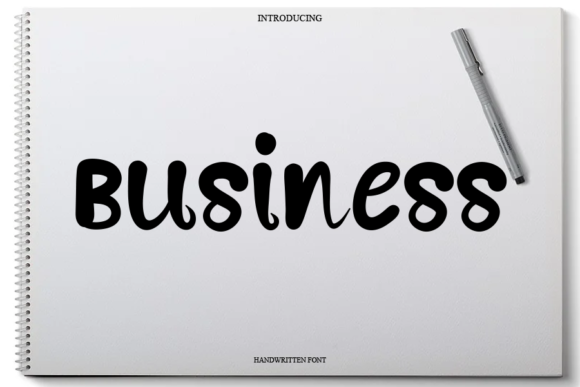
Unleash your boundless creativity with "Business" – a captivating script font family that adds a touch of whimsical elegance to any project. With its charming hand-brushed style, "Business" dances across the page in a captivating display of artistry.
Immerse yourself in an enchanting journey of words, as "Business" transforms your designs into visual masterpieces. Its dynamic character shines brightly, leaving a lasting impression on those who lay eyes upon your creations. Let the graceful strokes of "Business" carry your messages with finesse, be it through heartfelt letters, captivating social media posts, or eye-catching branding.
With "Business" by your side, you'll find versatility like never before. This font adapts seamlessly to a wide array of design landscapes. Watch it flourish on posters, add a touch of flair to packaging, or lend its playful charm to invitations. Let "Business" be your trusted companion, assisting you in crafting designs that leave a lasting impact.